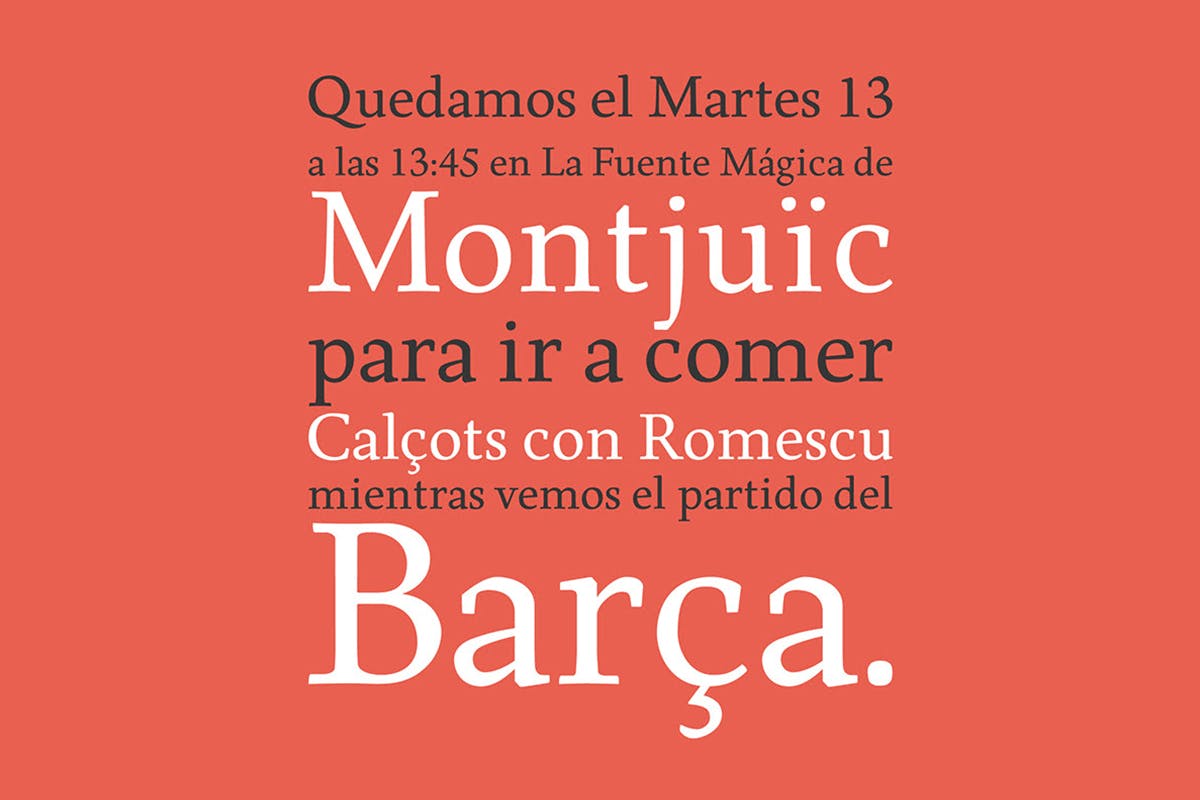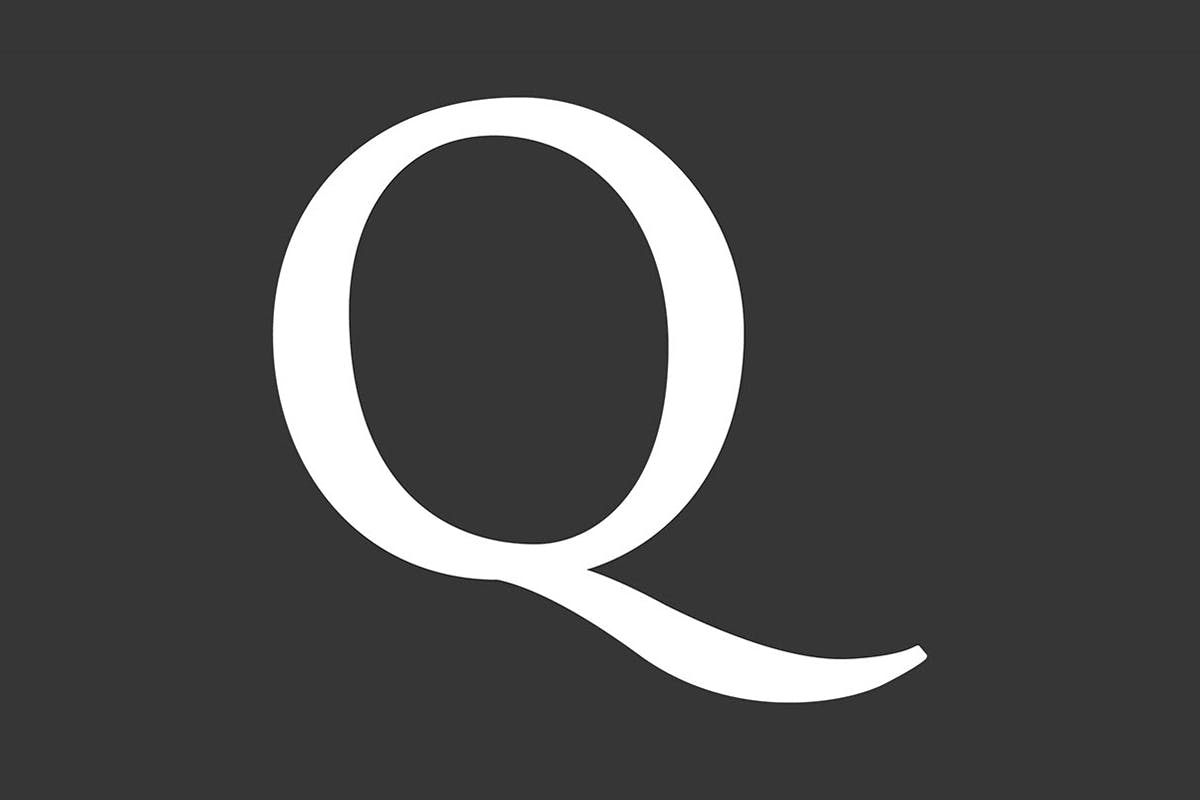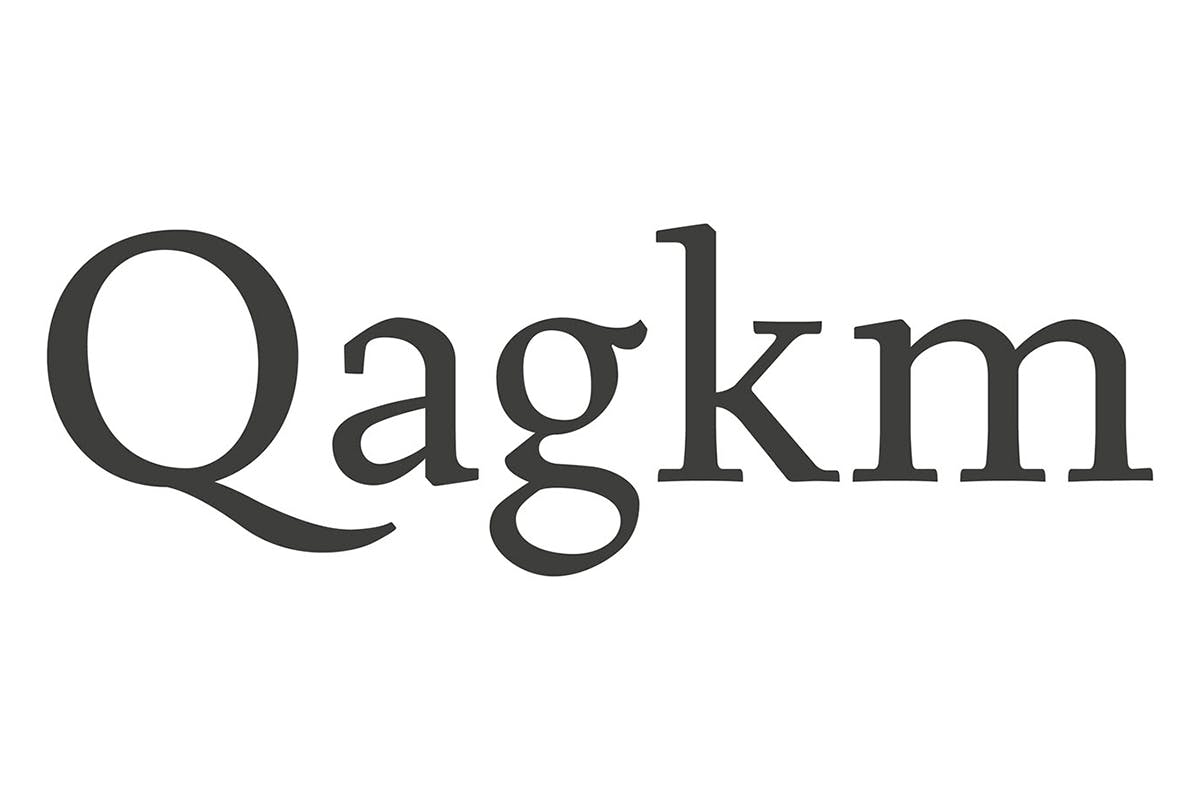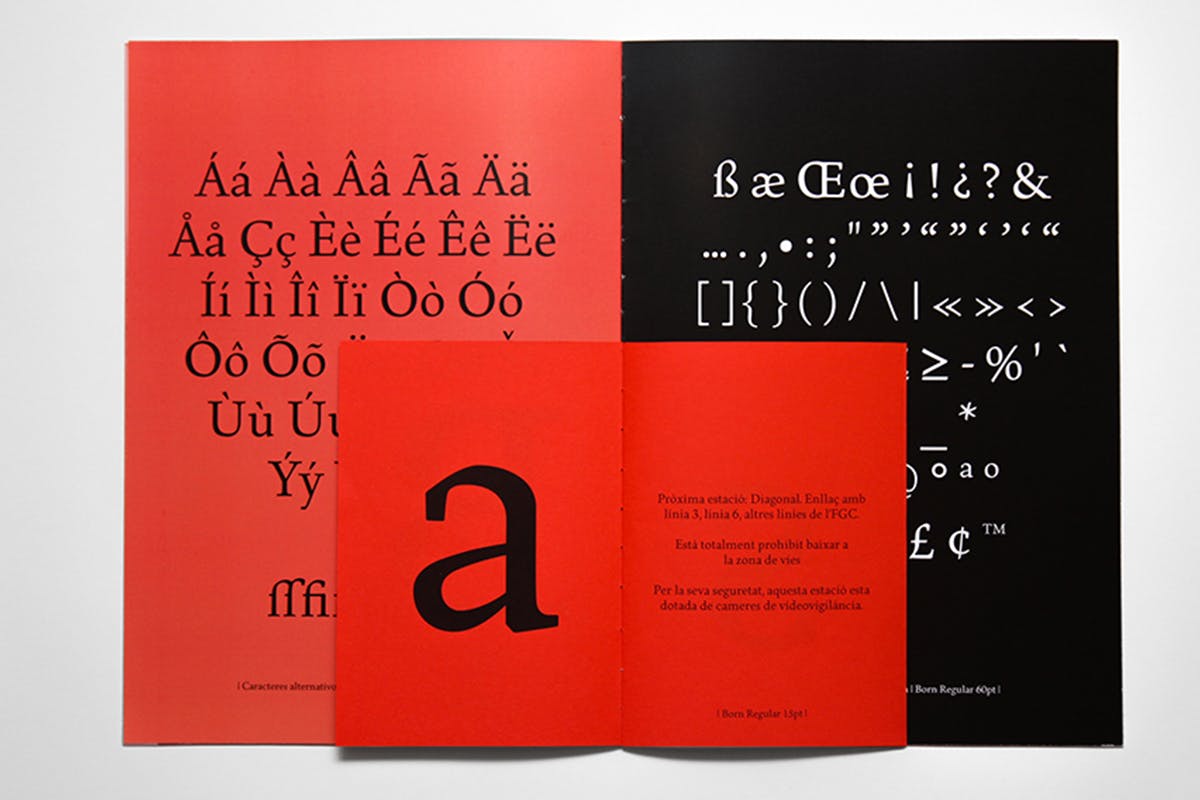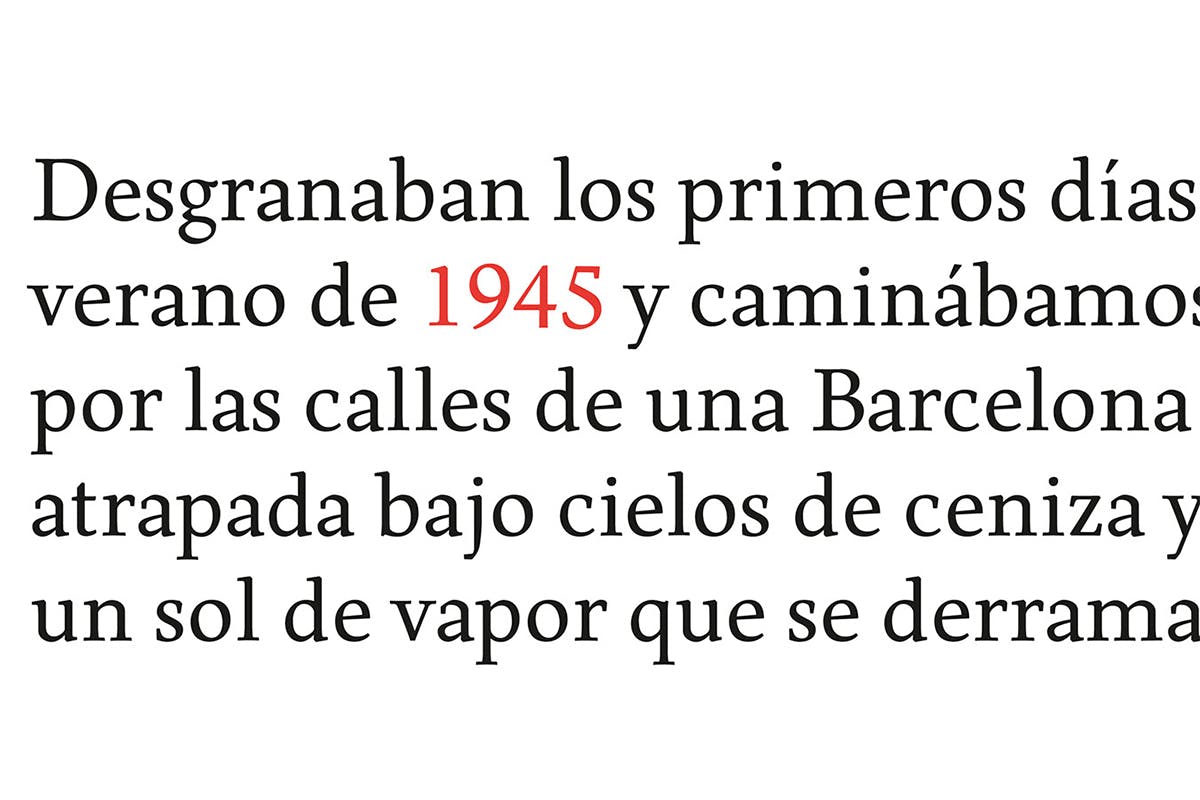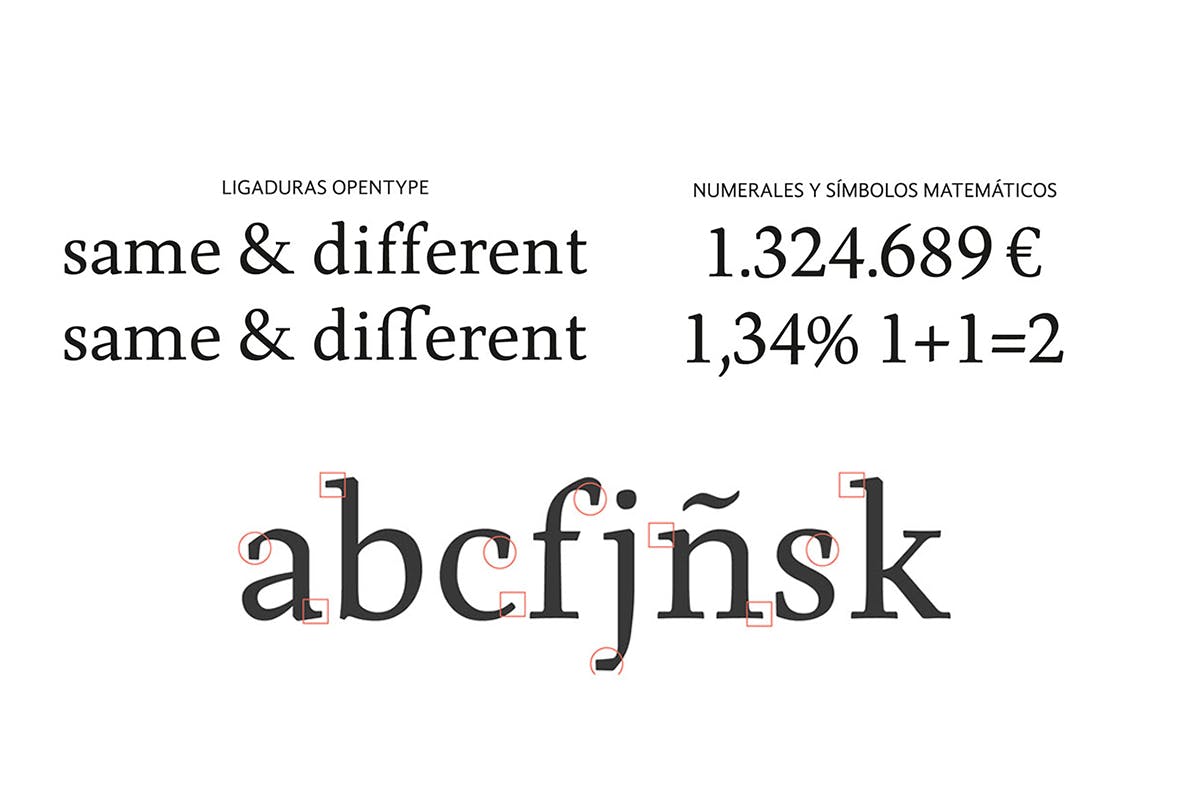
Free Born Typeface Font
Born is a humanistic free typeface that is based on traditional calligraphic forms, but with some new features in its endings, strokes and drops, that provide a more open, fresh and actual look. It also has a big X height, so it offers high legibility even at small sizes.